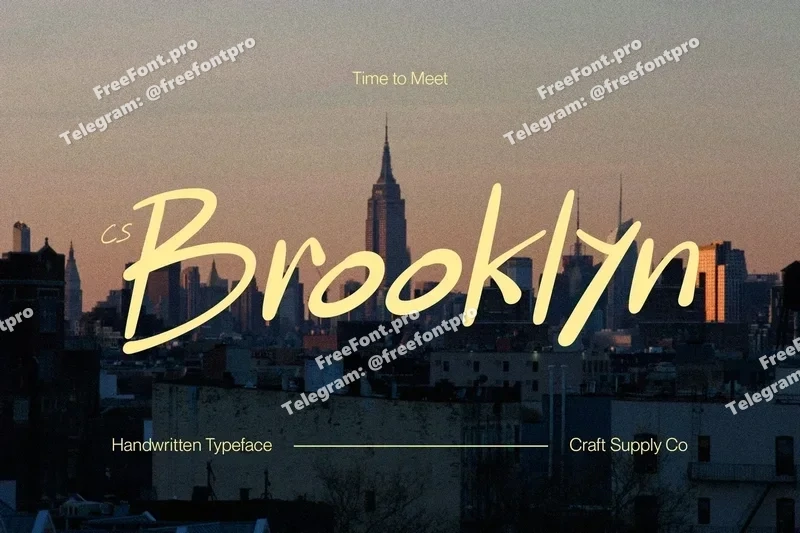
Brooklyn – Funky Handwritten Font
CS Brooklyn: Modern Attitude with a Funky Edge
Handwritten Font with a Carefree and Stylish Vibe This font is a carefree handwritten font that fuses a funky spirit with modern sans serif style. Its relaxed strokes and effortless flow exude confidence and creativity, making it perfect for projects that aim to feel youthful, fresh, and full of personality.
Funky Flow for Playful Expression Every line in this font moves with ease, creating a lively and spontaneous rhythm. The handwritten quality gives it a human touch, while its balanced spacing keeps it modern and clean. This makes it ideal for designers who want to combine fun and flair with contemporary aesthetics.
Modern Twist for Trendy Designs With its casual yet stylish character, this font captures the energy of modern lifestyle design. It’s perfectly suited for social media graphics, influencer branding, and creative campaigns that call for authenticity and approachability. The blend of funky curves and sleek form gives your text a cool, effortless look.
Perfect for Youthful and Creative Projects From lifestyle branding and apparel design to posters and digital content, this font shines wherever personality and energy matter most. Its mix of relaxed elegance and funky rhythm ensures that every word feels dynamic, expressive, and on-trend. With this font, your designs radiate confidence, creativity, and carefree charm.